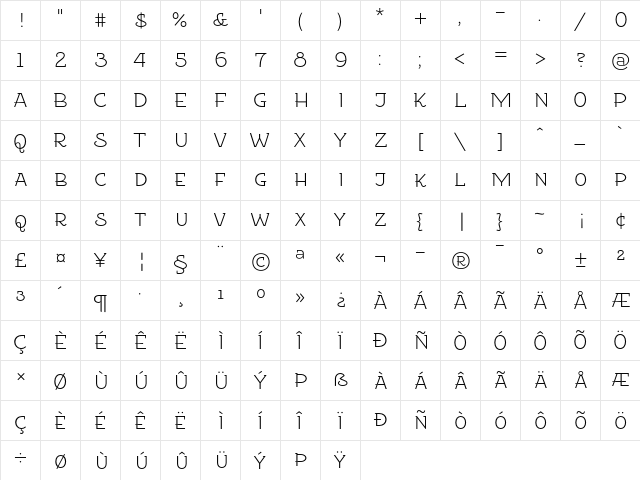
EtharnigSc Medium Font Preview
EtharnigSc Medium
EtharnigSc Medium Font Details
| Foundry | gluk |
| Designer | gluk |
Design Context for EtharnigSc Typeface
EtharnigSc takes a measured approach to typography — its balanced proportions and neutral character make it a reliable workhorse for both digital and print work.